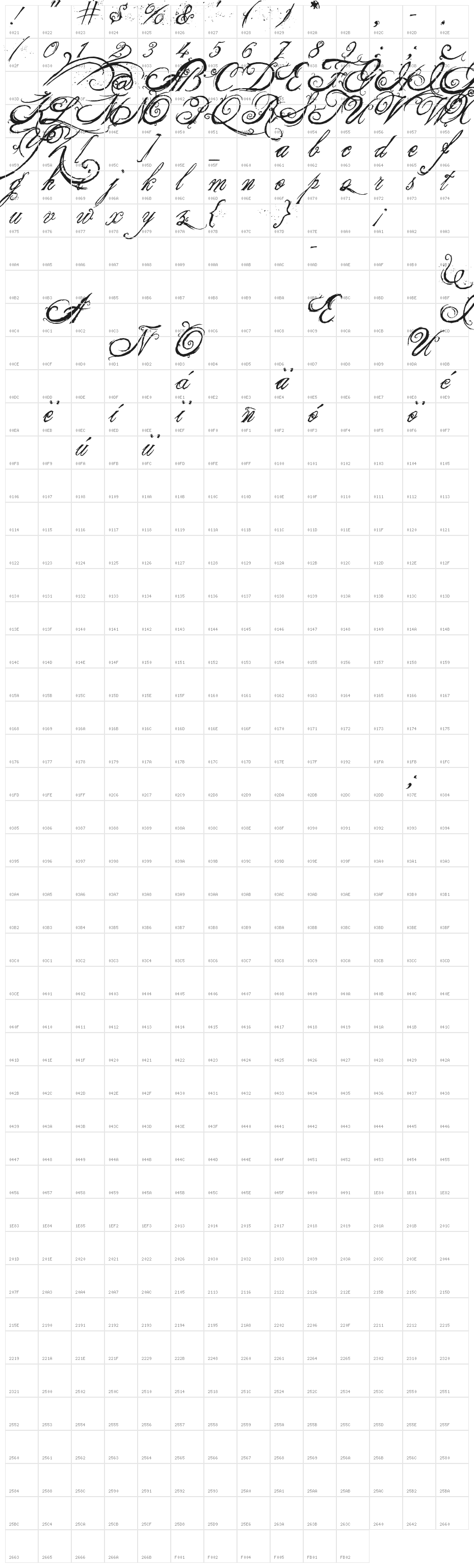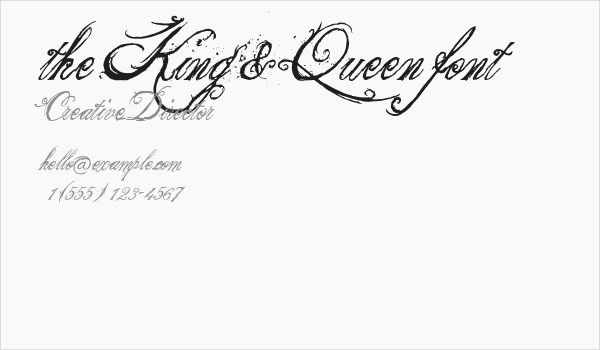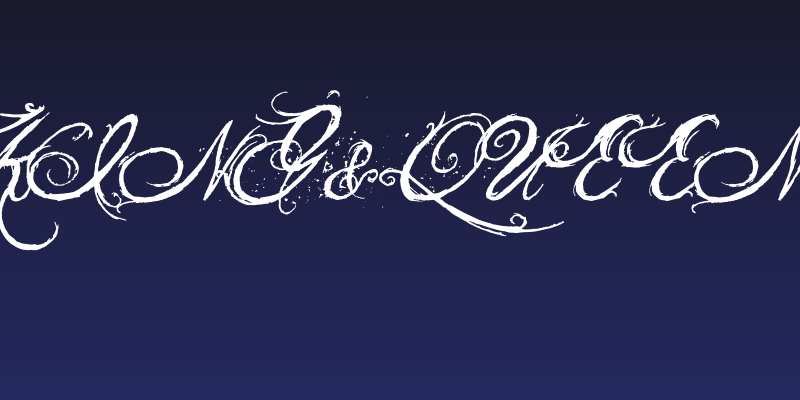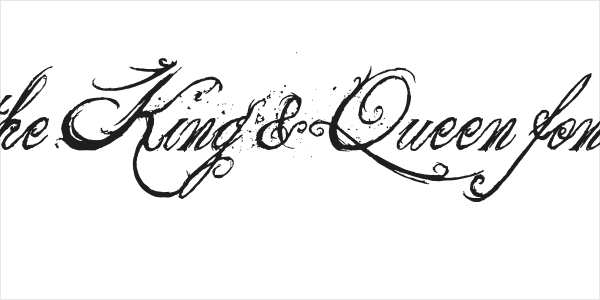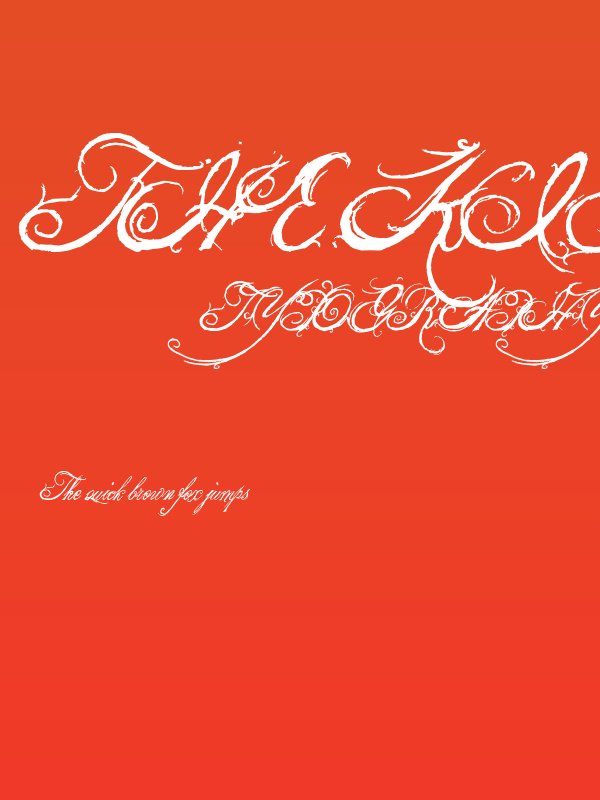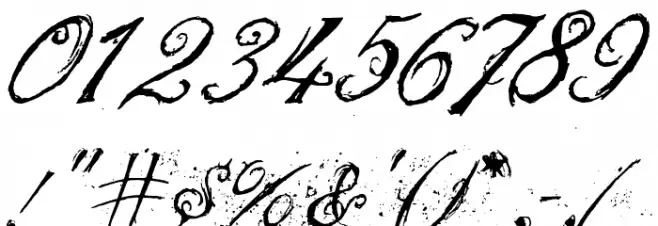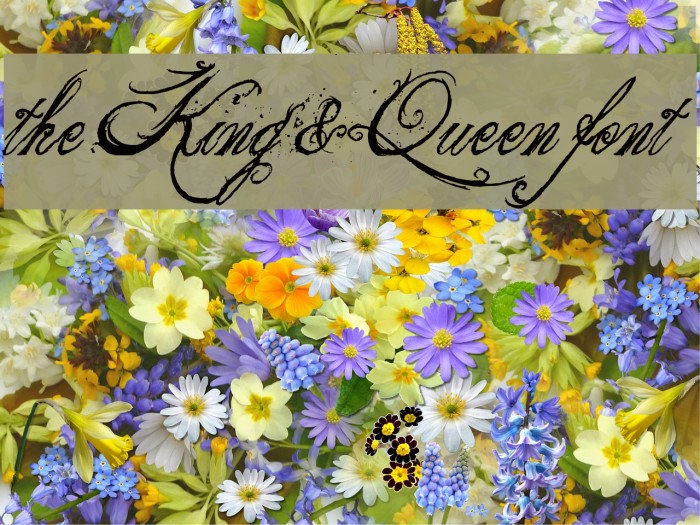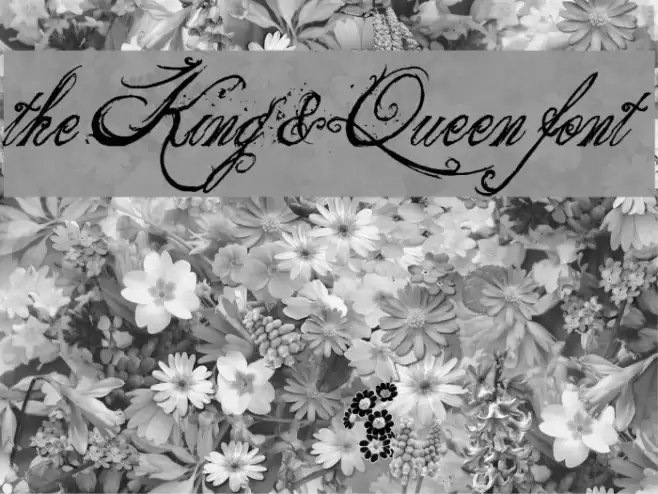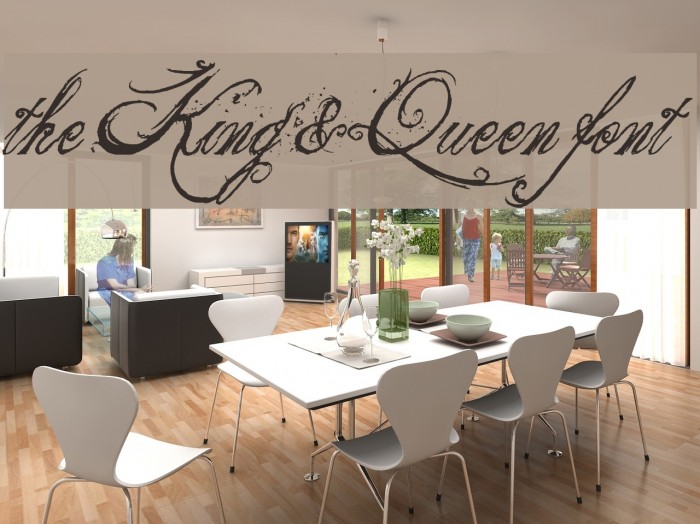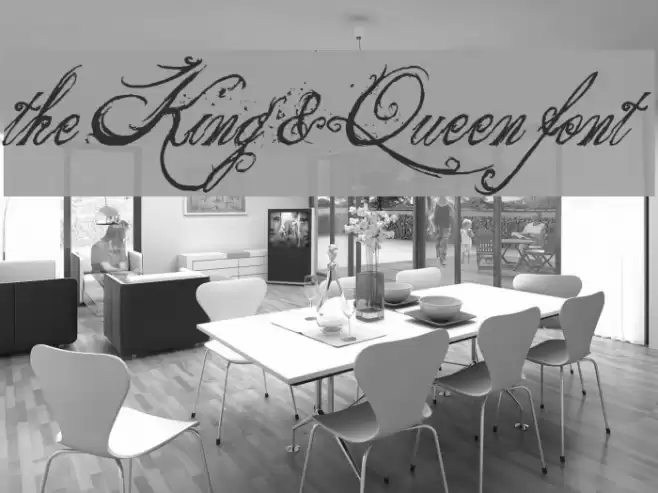
the King & Queen font Font
the King & Queen font Description
This font exudes a regal and ornate style, characterized by its elaborate swirls and flourishes that adorn each letter. The uppercase letters are particularly decorative, with intricate loops and extensions that give them a majestic appearance. The lowercase letters maintain a flowing, cursive style, enhancing the font's elegant and sophisticated look. The numerals and special characters are equally embellished, ensuring a cohesive design throughout. This font is ideal for projects that require a touch of elegance and grandeur, making it suitable for wedding invitations, luxury branding, and high-end product packaging.
| Use Case | Logos, Headlines, Invitations |
| Proposed Projects | Wedding invitations, luxury branding, high-end product packaging, decorative signage. |